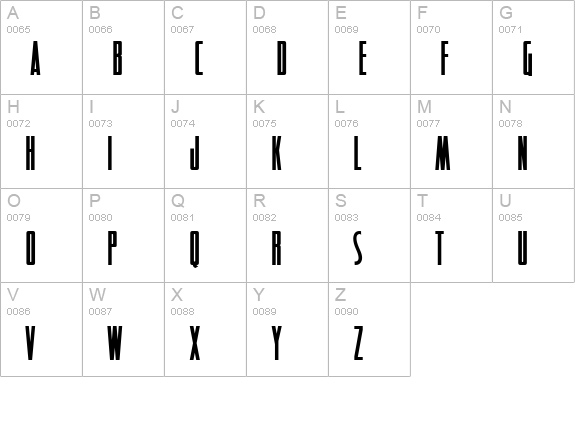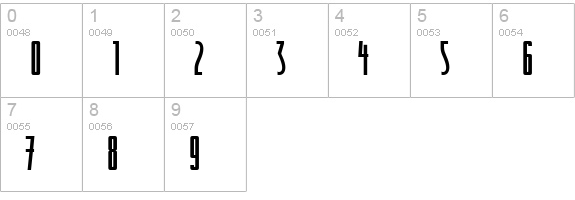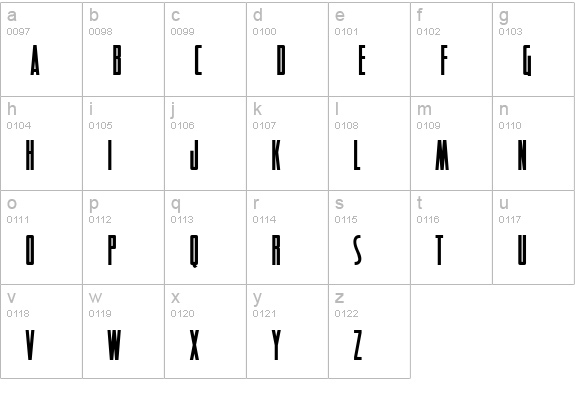
Detectives Inc font is a sleek and stylish typeface perfect for adding a touch of mystery and intrigue to your designs. This font exudes a sense of sophistication and professionalism, making it ideal for projects related to detective stories, crime thrillers, and suspenseful narratives. The elegant curves and sharp angles of Detectives Inc font give it a distinct and memorable look that will captivate your audience. The best part? Detectives Inc font is available for free download at FontsMarket.com. This means you can easily access this versatile and eye-catching font for all your creative projects without any cost. Whether you're working on a novel cover, a movie poster, or a branding project, Detectives Inc font is sure to elevate your design and leave a lasting impression. Download it today and unleash your inner detective with this captivating typeface.